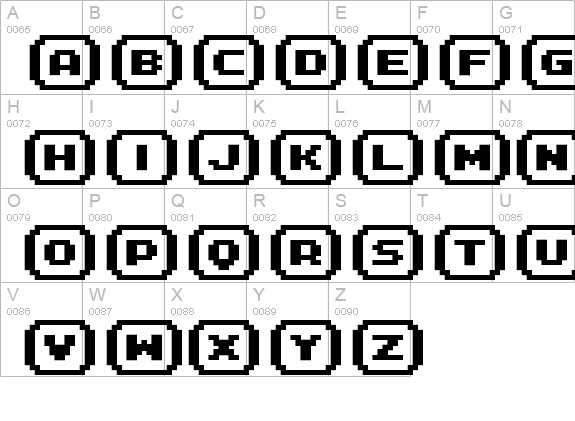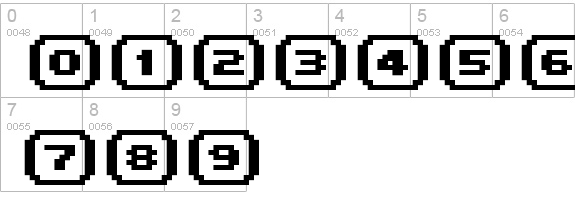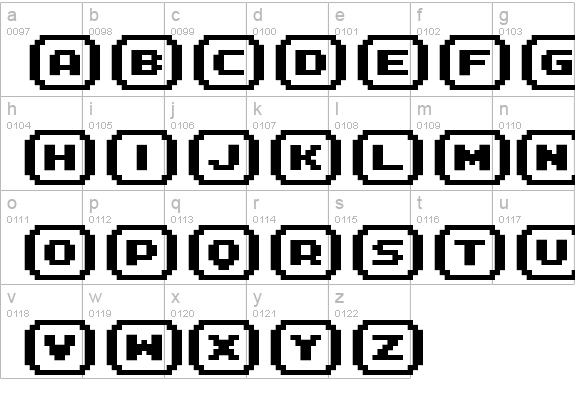
FFF Interface05b font is a modern and sleek typeface that exudes professionalism and sophistication. Its clean lines and contemporary design make it perfect for a wide range of projects, from branding to editorial design. The font features a unique style that sets it apart from other typefaces, making it a standout choice for any designer looking to make a bold statement. One of the best things about FFF Interface05b font is that it is completely free to download at FontsMarket.com. This means that you can easily access this high-quality font without having to worry about any costs. Whether you are a seasoned designer or just starting out, having access to a free font like FFF Interface05b can be incredibly valuable for your creative projects. Overall, FFF Interface05b font is a versatile and stylish typeface that is sure to elevate your designs. With its modern aesthetic and free availability, it is a must-have addition to any designer's toolkit.